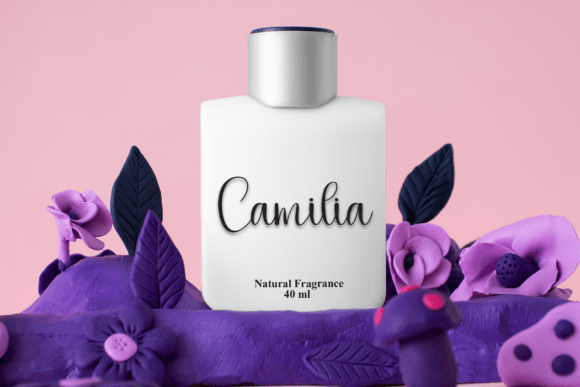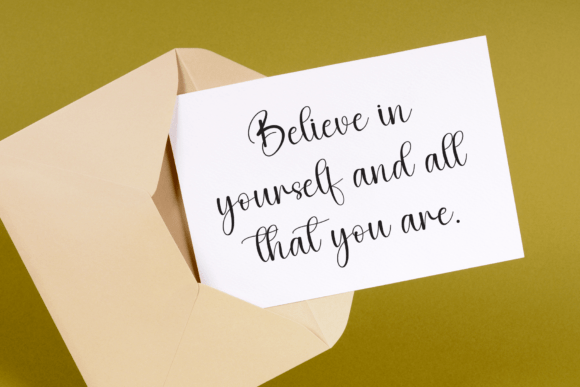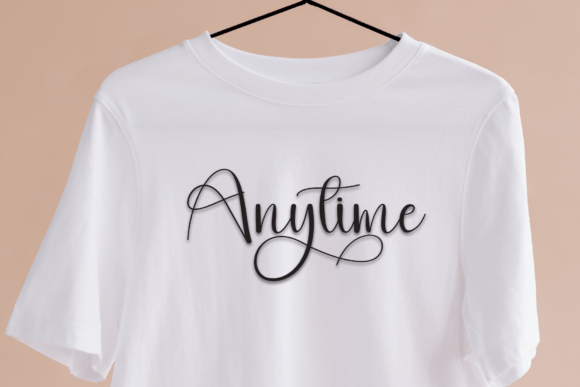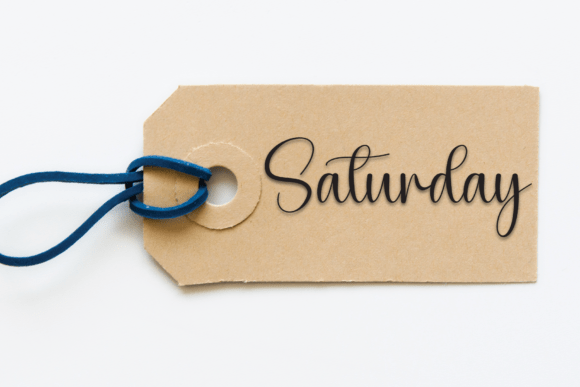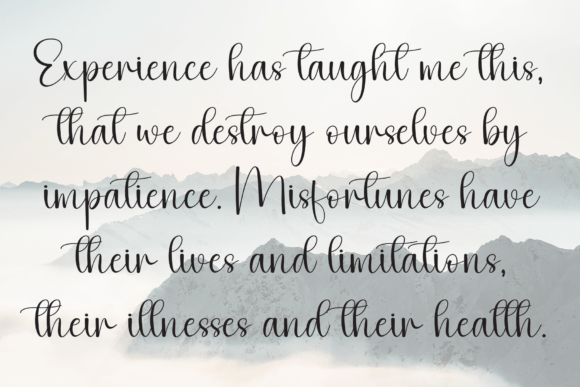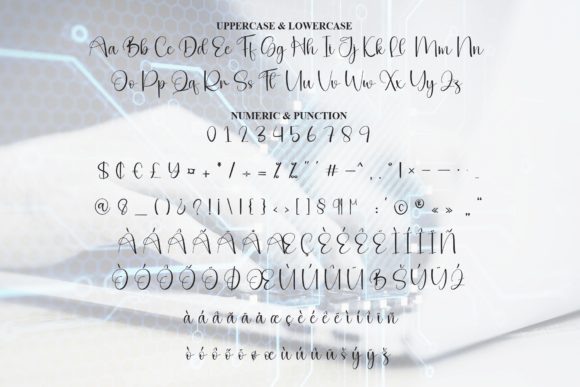
Introducing Digital: The Elegant Handwritten Script Font
In the world of digital design, typography plays a crucial role in conveying the tone and personality of a brand or project. A well-crafted font can elevate the visual appeal of a design, making it more engaging and memorable. This is where Digital, a stylish handwritten script font, comes into play. With its unique blend of elegance and playfulness, Digital is perfect for designers and crafters looking to add a personal touch to their work.
The Characteristics of Digital Font
Digital is a beautifully crafted handwritten script font that exudes sophistication and charm. Its flowing curves and natural rhythm give it a lively, organic feel that’s perfect for a wide range of design applications. From invitations and branding to social media and digital marketing materials, Digital brings a touch of warmth and personality to any project.
One of the standout features of Digital is its elegant design. The font’s graceful strokes and refined lines create a sense of luxury and sophistication, making it ideal for high-end branding and marketing campaigns. At the same time, its playful undertones add a touch of whimsy and creativity, making it perfect for designers who want to add a personal touch to their work.
Uses of Digital Font
Digital is a versatile font that can be used in a variety of design applications. Here are some of the most popular uses of this beautiful handwritten script font:
- Invitations and Event Design: Digital is perfect for creating elegant and sophisticated invitations for weddings, parties, and other events. Its flowing curves and natural rhythm make it ideal for designs that require a personal touch.
- Branding and Logo Design: With its unique blend of elegance and playfulness, Digital is a great choice for branding and logo design. It can help create a memorable and distinctive brand identity that sets a business apart from its competitors.
- Social Media and Digital Marketing: Digital is also perfect for social media and digital marketing materials, such as Facebook posts, Instagram stories, and email newsletters. Its elegant design and playful undertones make it ideal for creating engaging and shareable content.
Benefits of Using Digital Font
There are many benefits to using Digital in your design projects. Here are some of the most significant advantages of this beautiful handwritten script font:
- Unique and Memorable: Digital is a unique and memorable font that can help your design stand out from the crowd. Its elegant design and playful undertones make it perfect for creating distinctive and recognizable branding.
- Versatile and Flexible: Digital is a versatile font that can be used in a wide range of design applications. Its flowing curves and natural rhythm make it ideal for designs that require a personal touch.
- Easy to Read and Understand: Despite its elegant design, Digital is easy to read and understand. Its clear and refined lines make it perfect for body text and other long-form content.
Tips for Using Digital Font
Here are some tips for using Digital in your design projects:
- Use it Sparingly: While Digital is a beautiful font, it’s best to use it sparingly. Use it for headings, titles, and other key elements, and pair it with a simpler font for body text.
- Experiment with Colors and Textures: Digital looks great in a variety of colors and textures. Experiment with different combinations to find the one that works best for your design.
- Pair it with Other Fonts: Digital can be paired with other fonts to create a unique and memorable design. Try pairing it with a sans-serif font for a modern and elegant look.
Digital is a stylish handwritten script font that captures elegance and playfulness in every stroke. With its flowing curves and natural rhythm, it adds a personal, charming touch to invitations, branding, and social media. Its graceful design brings warmth, sophistication, and creativity to any project. Whether you’re a designer or crafter, Digital is a great choice for anyone looking to add a touch of elegance and whimsy to their work.